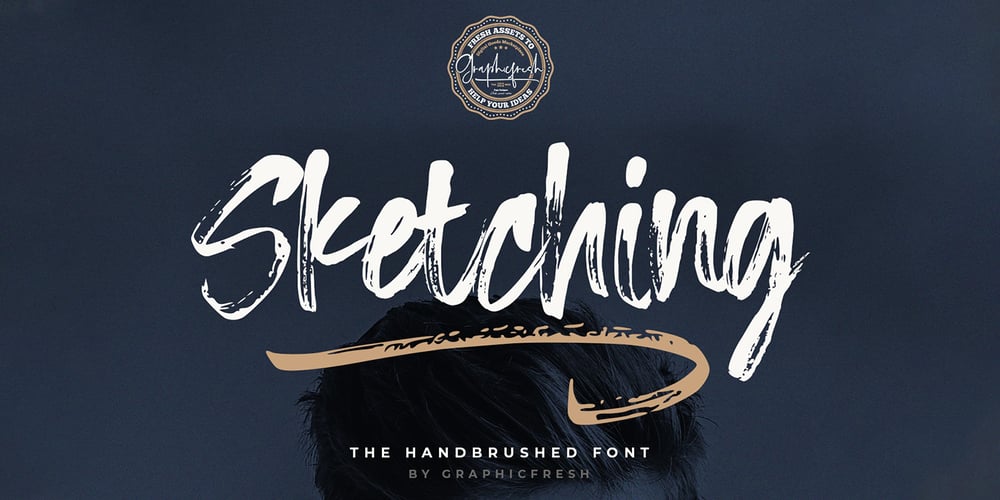
Sketching
Sketching font
Sketching Font Family was designed by Muhammad Husni Haikal and published by Graphicfresh. Sketching contains 2 styles and family package options. This time we designed a font of ink streaks on paper and named it Sketching. We loved creating it because this is a work of art in itself, making it through a long process. Every letter we made has always maintained its distinctive style. We hope you are all happy with our latest font.